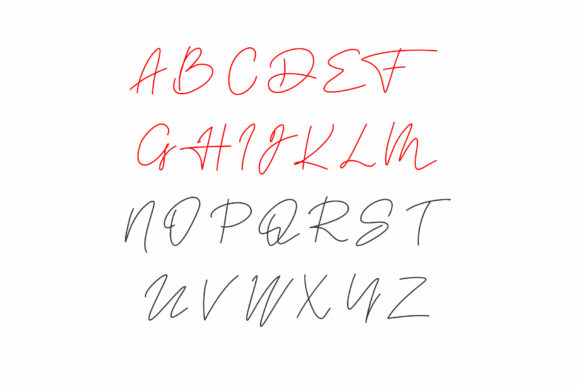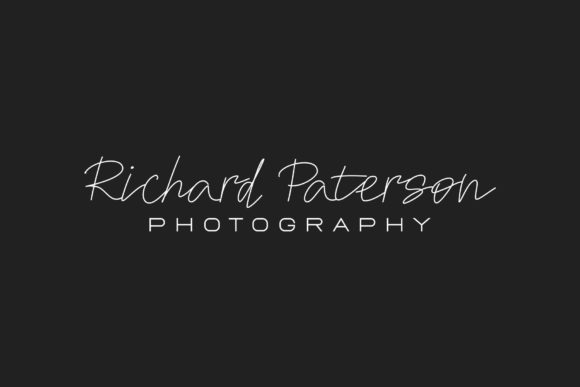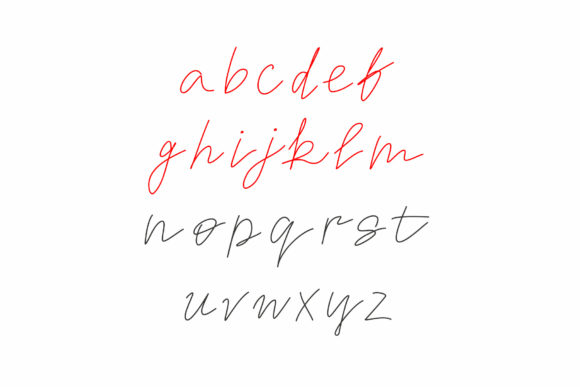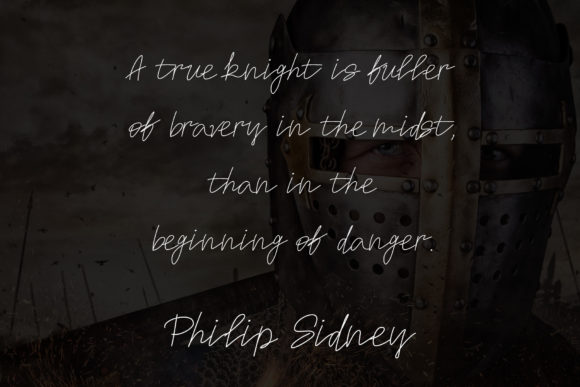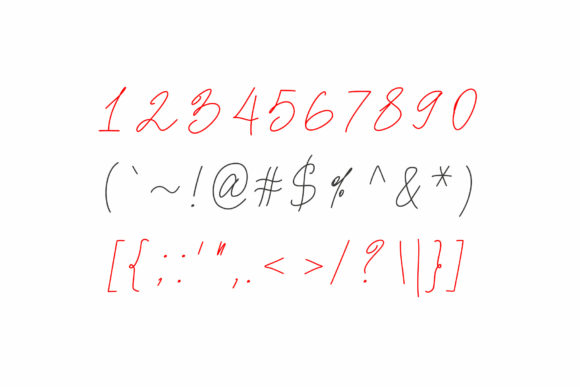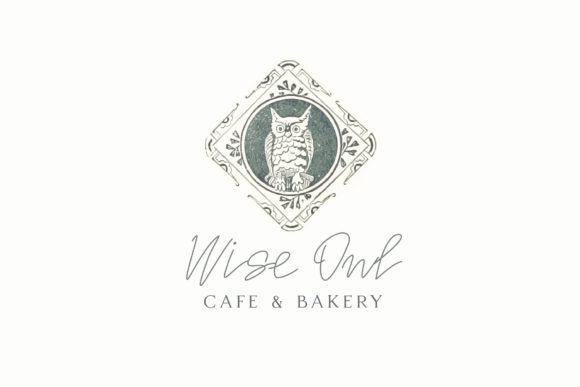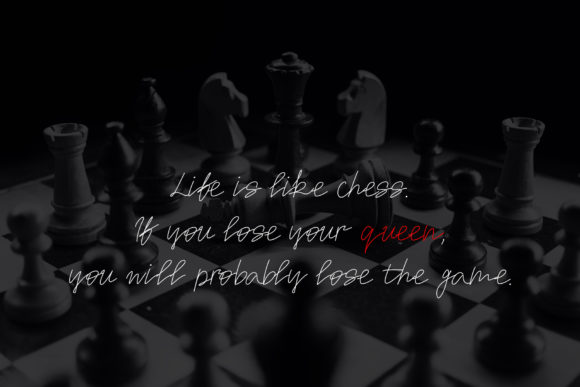
Templar Font
About Templar Font
Templar is a stunning signature script that is ready to be used for your creative endeavors. This font was made entirely by hand, ensuring a unique and natural feeling. If you’ve been struggling to find a natural-looking signature script, then look no further.